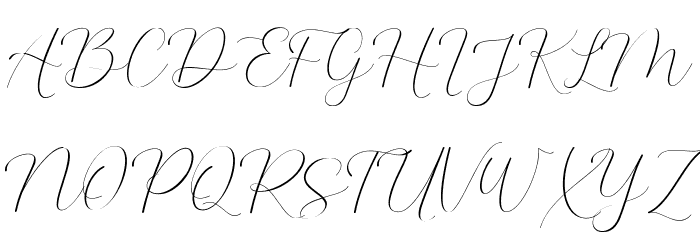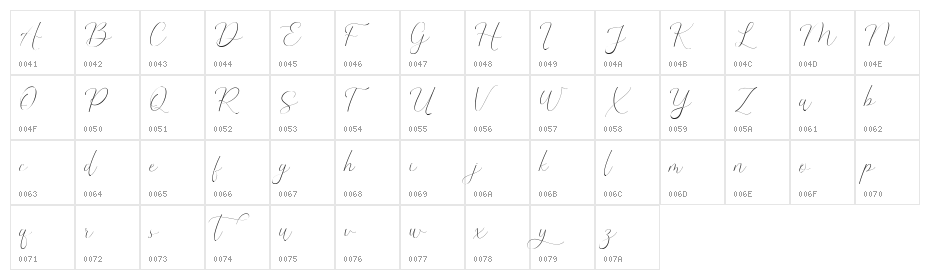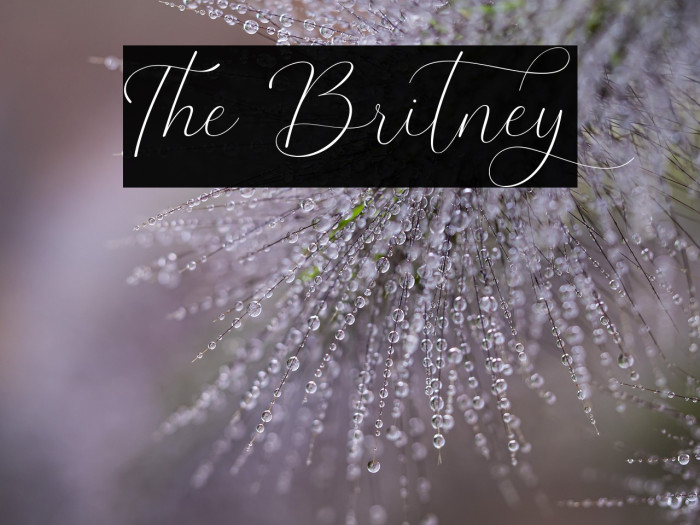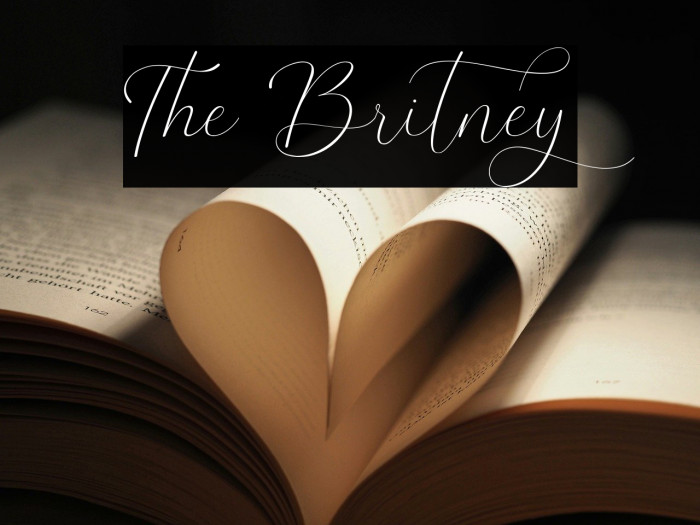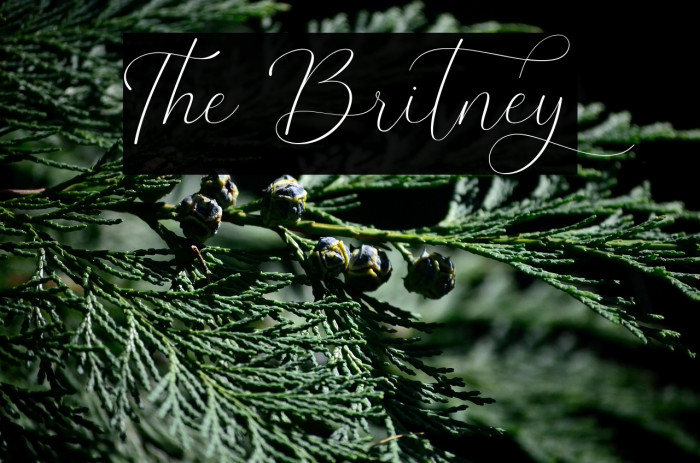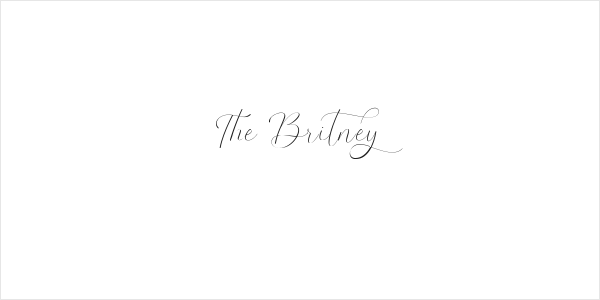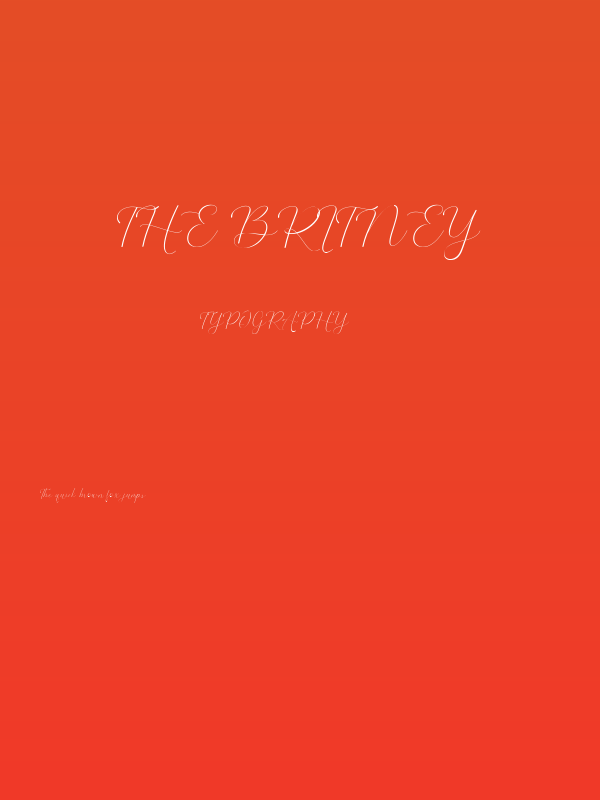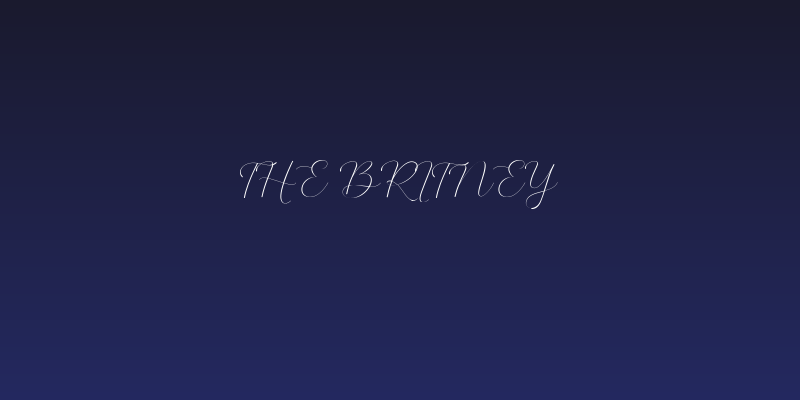
The Britney Font
The Britney Description
This elegant script font features flowing, interconnected letters that exude a sense of sophistication and grace. The characters are delicately crafted with thin, sweeping strokes that create a sense of fluidity and movement. The uppercase letters are ornate, with intricate loops and flourishes, while the lowercase letters maintain a more subtle elegance. The font's overall appearance is airy and light, making it ideal for adding a touch of refinement to any design. Its delicate nature suggests a careful, artistic touch, perfect for projects that require a personal, handwritten feel.
| Overall Style | Elegant, Artistic |
| Proposed Projects | Ideal for wedding invitations, elegant branding, personal stationery, and artistic projects. |